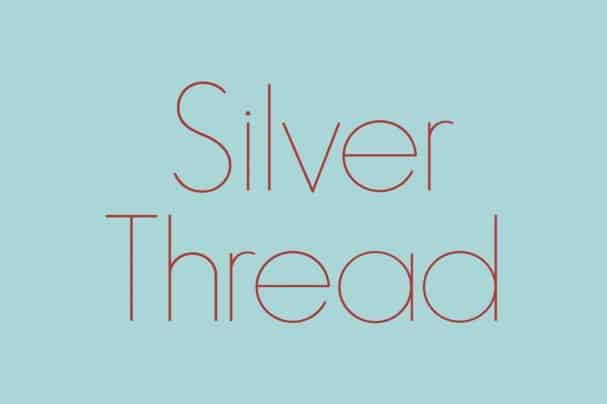
Silver Thread Font
Silver Thread Font shares similarities with both politica and needle font. This typeface is also listed inside google fonts, and available for free download. The ones are hand-drawn fonts that during reality supply off an actual private contact on your responsibilities. It is also one of the maximum used fonts in the google fonts.
The majority of the designers were using it for their very non-public systems. And some others are taking it as a concept for making new typefaces. Download A dosis font is right for numerous duties that embody product packaging, label, e-book/cowl have a take a look at, sign, particular sports activities, and numbers greater. It’s miles much like the anurati font.